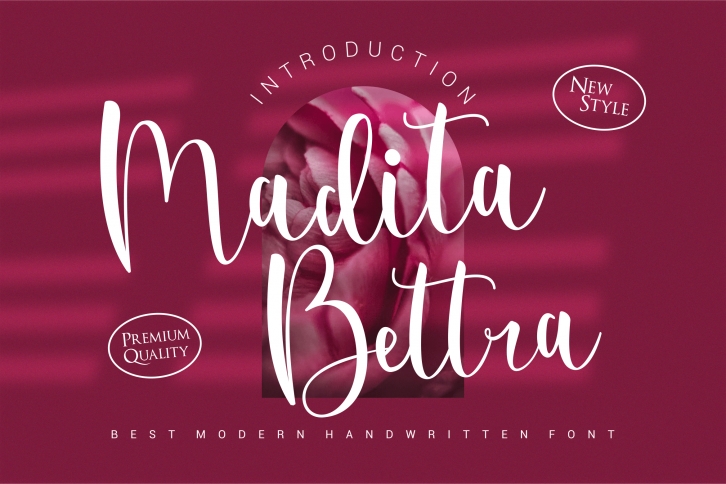
Madita Bettra is an enchanting handwritten font. This versatile script font has a wide spectrum of applications ranging from greeting cards to headlines and is guaranteed to add a romantic feel to your next project.